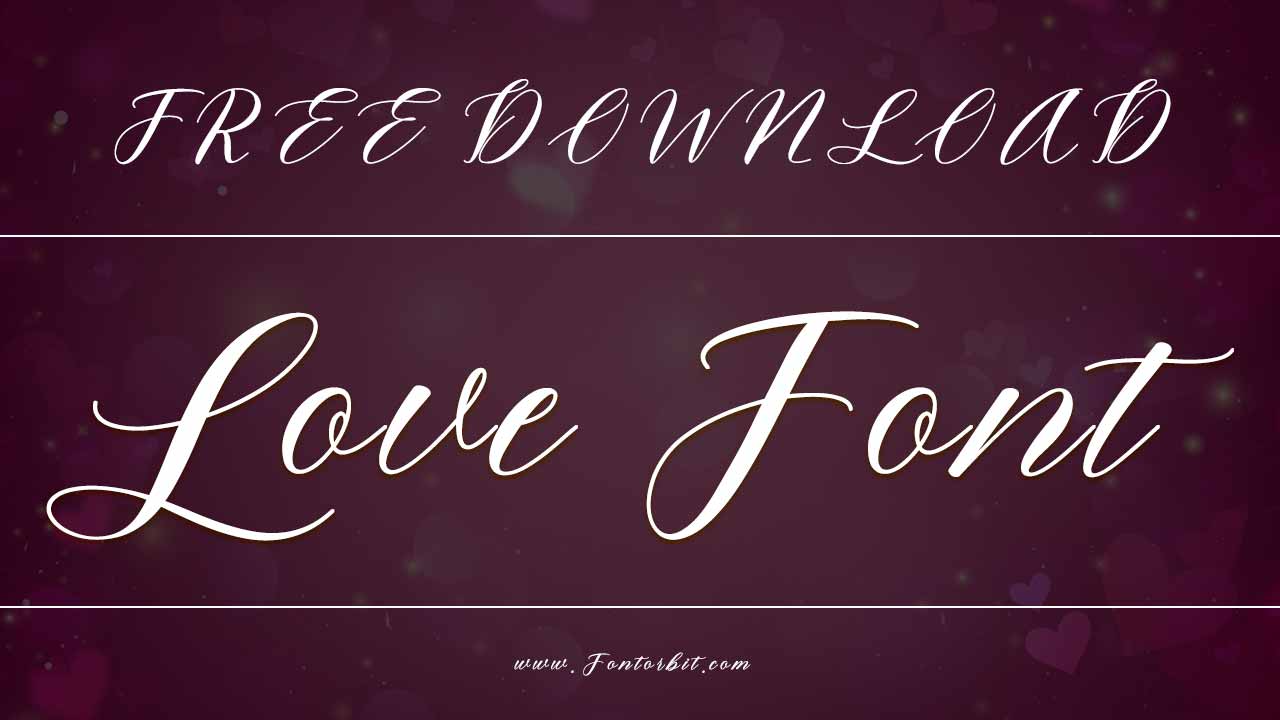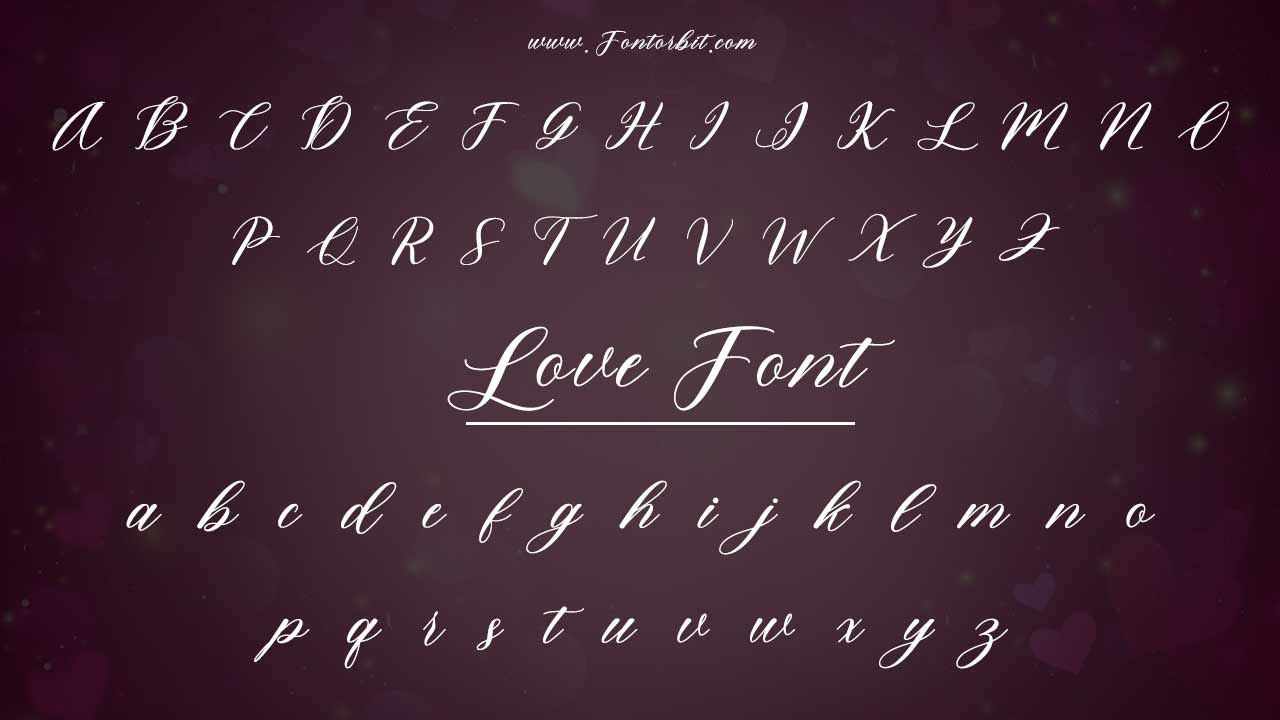
Typography is an essential part of design. Writing is more than just words on a page; it is about creating an impression, arousing feelings, and establishing the tone. Love Font, designed by Des Gomez, is a beautiful decorative script that adds elegance and personality to any project. Whether you’re crafting greeting cards, designing logos, or working on a stylish web page, this handwritten font is a perfect way to bring warmth and charm to your text.
Why Love Font Stands Out
What makes Love Font special? It’s not just a font; it’s an experience. The soft curves and handwritten strokes give it a personal touch, making it perfect for projects that need to convey emotion. You can compare it to writing a letter by hand; it feels genuine and warm.
Key Features of Love Font:
- Designer: Des Gomez
- Style: Script, Handwritten
- Best Uses: Greeting Cards, Logos, Web Pages, Branding
Exploring Love Font Variations
There are several variations of the Love Font, each of which is appropriate for a particular design need.
- Love Regular – A smooth, flowing script perfect for everyday elegance.
- Love Bold – A thicker, more pronounced version for strong emphasis.
- Love Light – A delicate, subtle style ideal for soft and romantic designs.
- Love Italic – A slanted version that adds an elegant, refined touch.
Where Can You Use Love Font?
The versatility of Love Font makes it suitable for a variety of creative projects. Here are some ideas:
1. Greeting Cards
Imagine receiving a handwritten card, there’s something special about it. Love Font brings that same authenticity to digital and print greeting cards. Whether it’s a heartfelt Valentine’s Day message or an elegant wedding invitation, this font enhances the sentimental value of your words.
2. Logos & Branding
If you’re designing a brand for a boutique, a florist, or a wedding planner, Love Font fits perfectly. Its sophisticated yet approachable style makes it great for fashion, beauty, and creative businesses.
3. Web Pages & Social Media
Want to make Instagram posts or Pinterest graphics more eye-catching? Love Font adds personality to your social media content. It also works well on websites where a soft, stylish aesthetic is needed.
4. Handwritten-Style Content
Planners, invitations, stylish quotes, and journals all benefit from Love Font’s handwritten feel. It brings a natural, personalized look to your designs.
How To Make Love Font Shine
Using Love Font effectively means knowing how to pair it, style it, and apply it for the best visual impact.
1. Pairing Love Font With Other Fonts
A great design often involves font pairing. Love Font looks best when combined with modern or classic fonts that create contrast:
- Montserrat – A clean, geometric sans-serif that balances Love Font’s handwritten style.
- Playfair Display – A traditional serif that adds elegance.
- Poppins – A minimalist sans-serif for a sleek, modern look.
2. Choosing The Right Colors
Color plays a big role in typography design. Here are some ideas for using Love Font effectively:
- Soft pastel tones – Perfect for wedding invitations and romantic quotes.
- Vibrant, bold colors – Great for social media and promotional materials.
- High contrast combinations – Ideal for logos and branding to create striking visuals.
Love Font In Emails & Social Media
Love Font isn’t just for print-it also enhances email templates, blog headers, and social media graphics. Whether you’re designing an Instagram story or an email newsletter, this font adds a warm, personal touch.
Love Font Vs. Similar Fonts
How does Love Font compare to other popular script fonts? Here’s a quick comparison:
| Feature | Love Font | Similar Fonts (e.g., Dancing Script, Pacifico) |
| Style | Handwritten Script | Handwritten Script |
| Formats | TTF, OTF, SVG | TTF, OTF |
| Best Use | Logos, Invitations, Social Media | Greeting Cards, Posters |
6. How Can I Make Love Font Stand Out In My Designs?
Pair it with modern fonts, use contrasting colors, and optimize text for readability. To enhance its visual appeal, try different font sizes and effects.